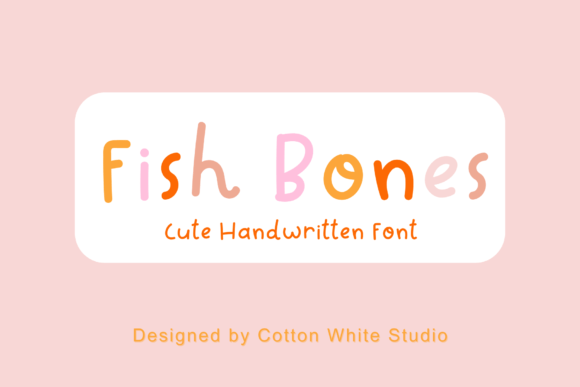
Dive into the world of Fish Bones Font, a script font family that will add a touch of whimsy and charm to your digital creations. Inspired by the free-flowing beauty of handwritten notes, this font captures the essence of personal expression and creativity.
Embrace the art of handwritten expression with Fish Bones Font. Let your words dance across the screen, carrying your unique style and personality. This font is more than just a collection of letters; it's a gateway to a world of creativity and self-expression.
Imagine your digital planner adorned with the graceful strokes of Fish Bones Font. Each entry, each task, and each note will come alive with a sense of individuality. Your journal will transform into a canvas of your thoughts and emotions, each word flowing seamlessly from your heart to the screen.
Your invitations will captivate recipients with their unique charm, hinting at the special occasion within. And your notes will carry a touch of warmth and personality, making every message feel like a personal connection.
But the versatility of Fish Bones Font extends beyond personal use. It's also a powerful tool for graphic designers and artists. Create stunning designs for social media, websites, and print materials. Add a touch of elegance to your logos, branding, and marketing collateral.
With Fish Bones Font, the possibilities are endless. Let your creativity soar, and let your words dance with joy. Discover the beauty of handwritten expression and make your digital creations truly unforgettable.